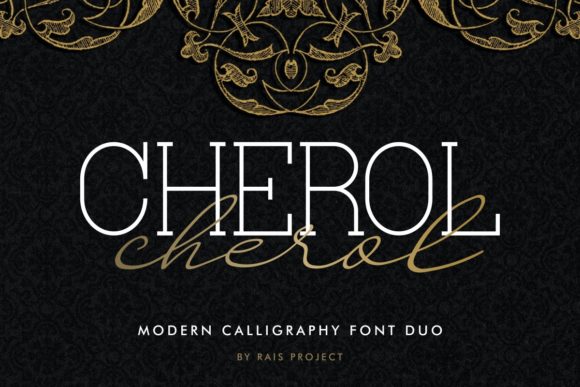
Behold, the Cherol Font - a stunning serif masterpiece crafted by RaisProject, a name synonymous with typographic excellence. This font is not just a collection of letters; it's an artistic expression, a visual symphony that will transform your creative projects into breathtaking realities.
With its slender strokes and crisp serifs, Cherol Font exudes a timeless elegance that is both classic and contemporary. Its versatility knows no bounds, making it the perfect choice for a wide range of projects, from captivating logos and branding materials to eye-catching social media graphics and website designs.
Cherol Font's inherent charm lies in its ability to elevate ordinary words into extraordinary statements. Its thin lines dance across the page, creating a sense of movement and fluidity that draws the eye and captivates the senses. Whether you're designing a poster for a local theater production or crafting a heartfelt wedding invitation, Cherol Font will add a touch of sophistication and beauty that is sure to leave a lasting impression.
Unleash your creativity and embark on a typographic adventure with Cherol Font. Let its delicate strokes guide you as you weave tales of love, passion, and adventure. Its versatility will astound you, allowing you to effortlessly adapt it to any project, any style, any vision.